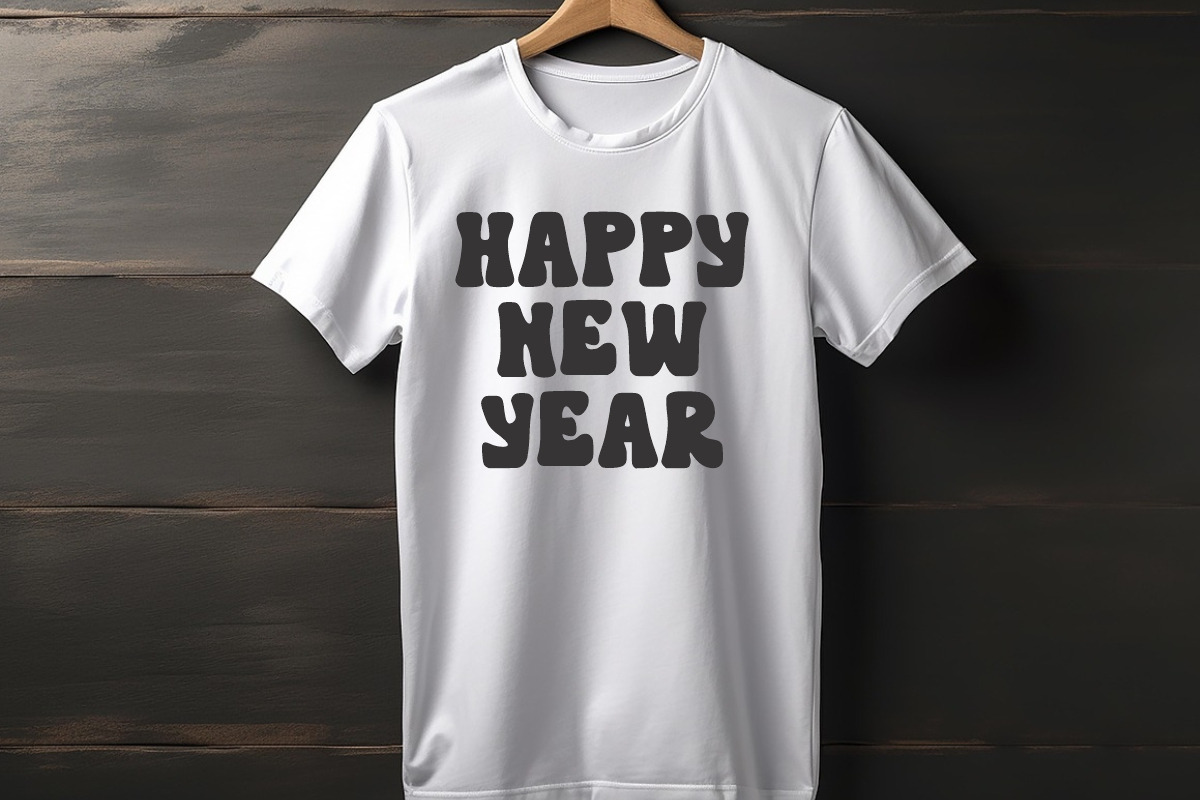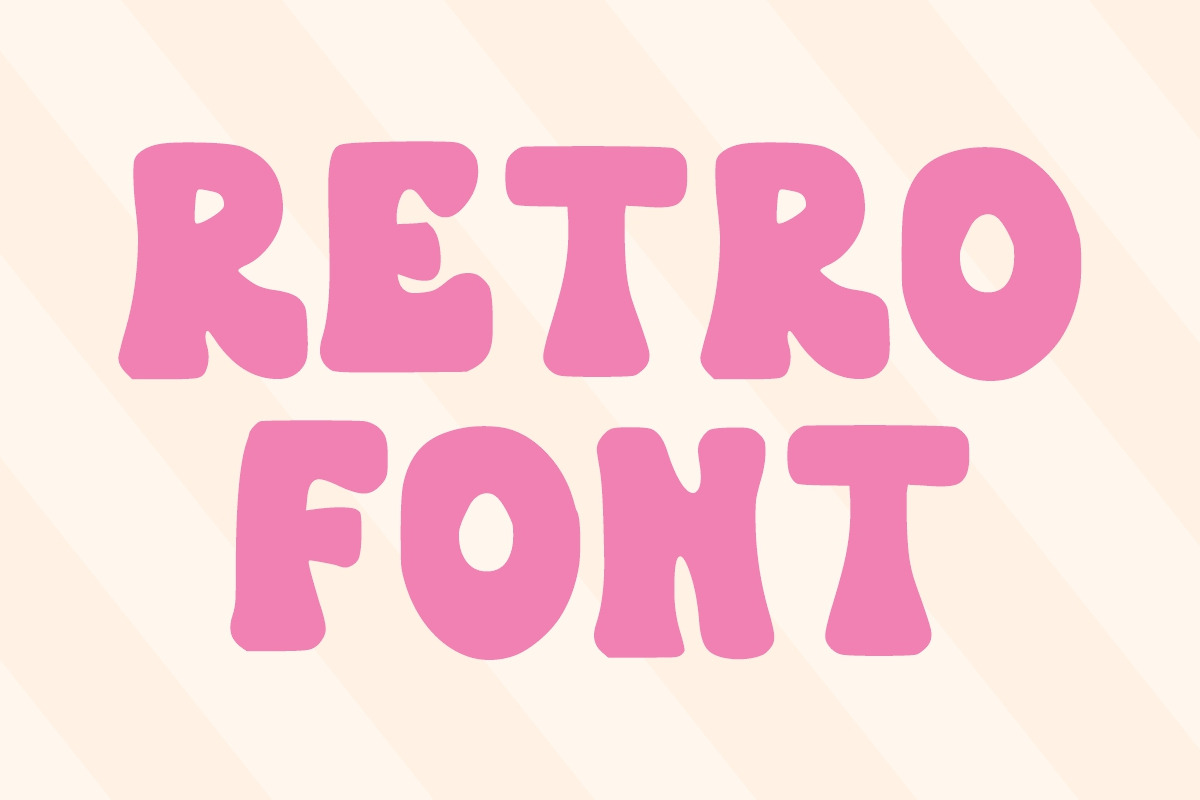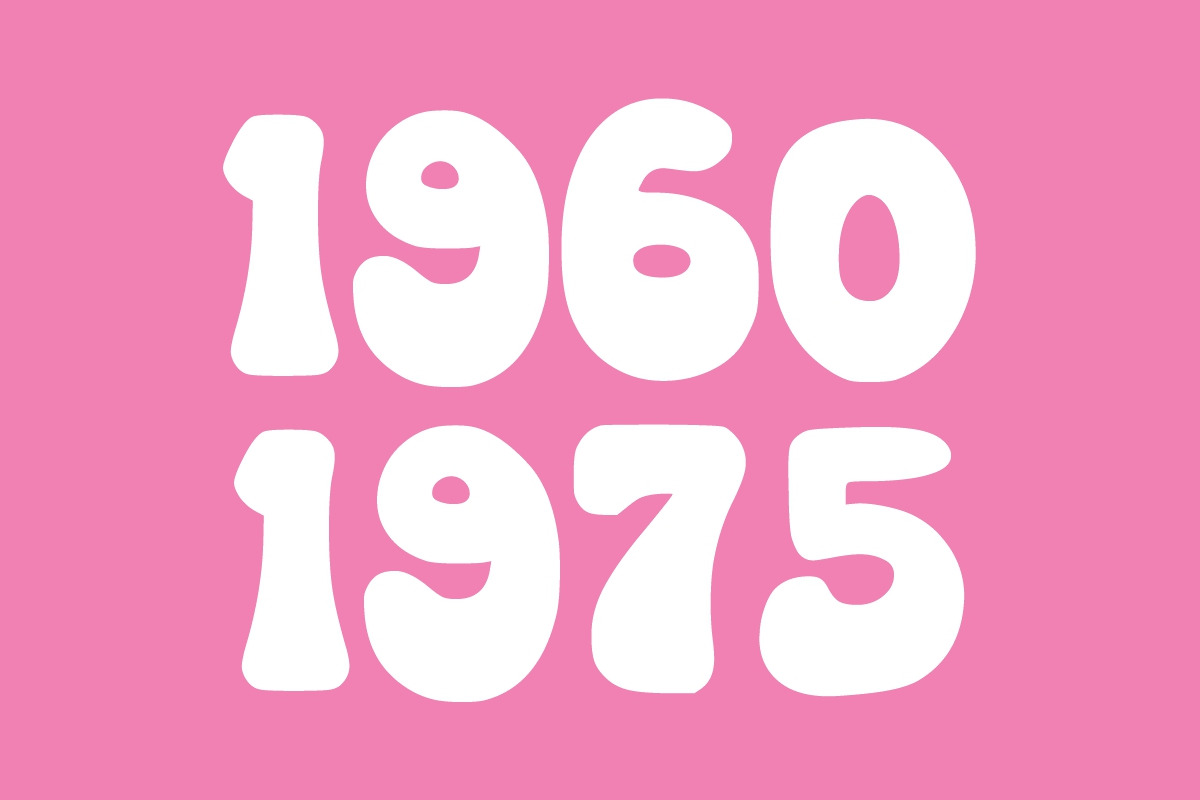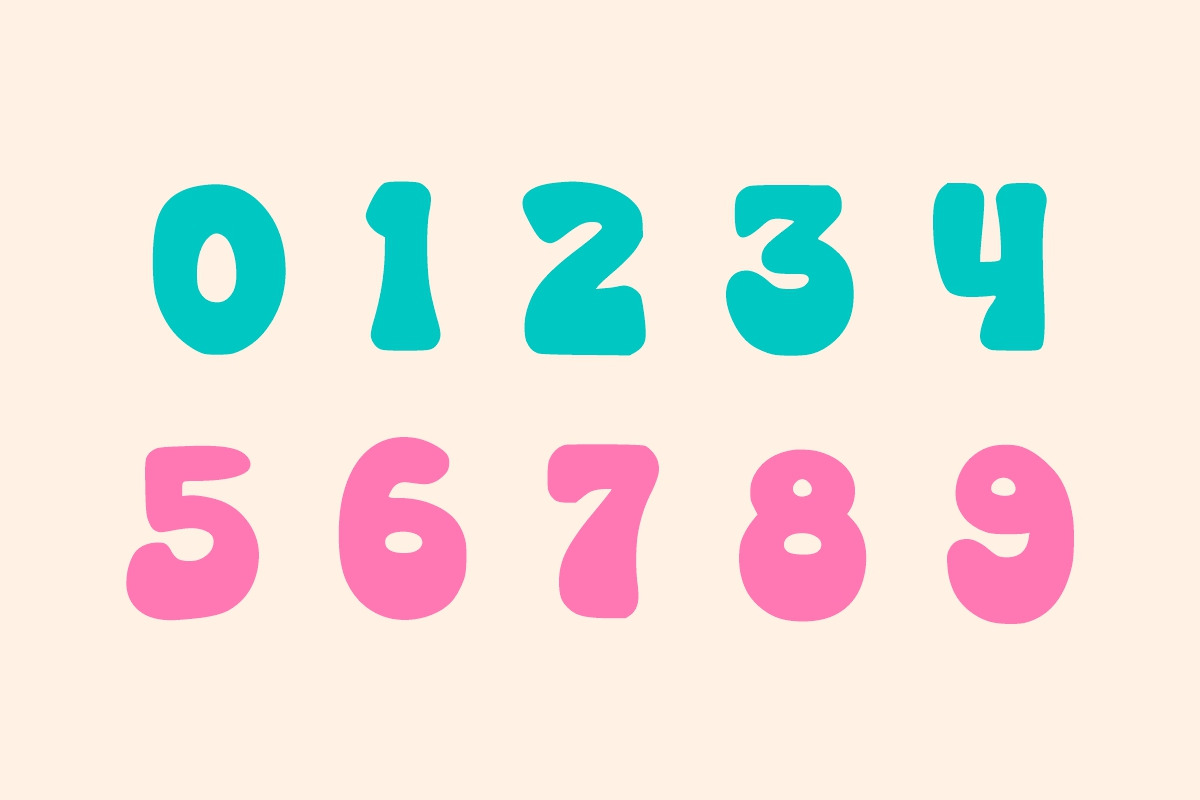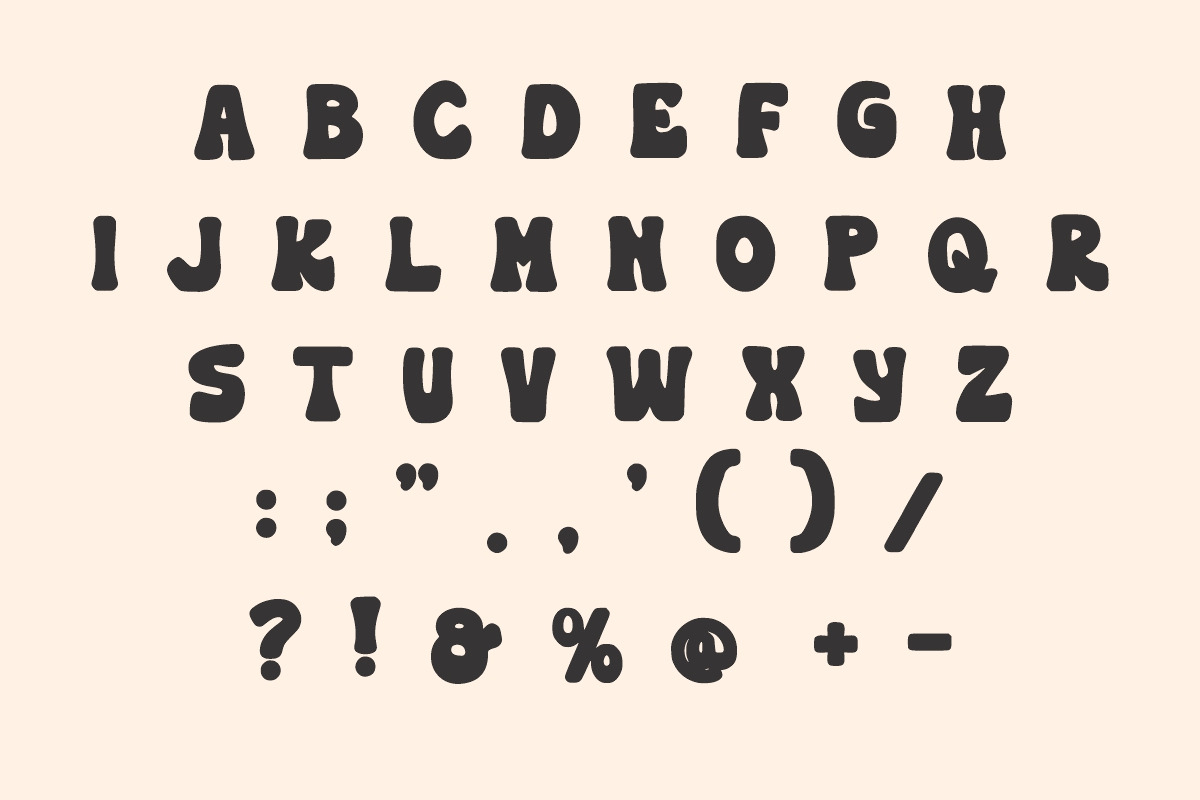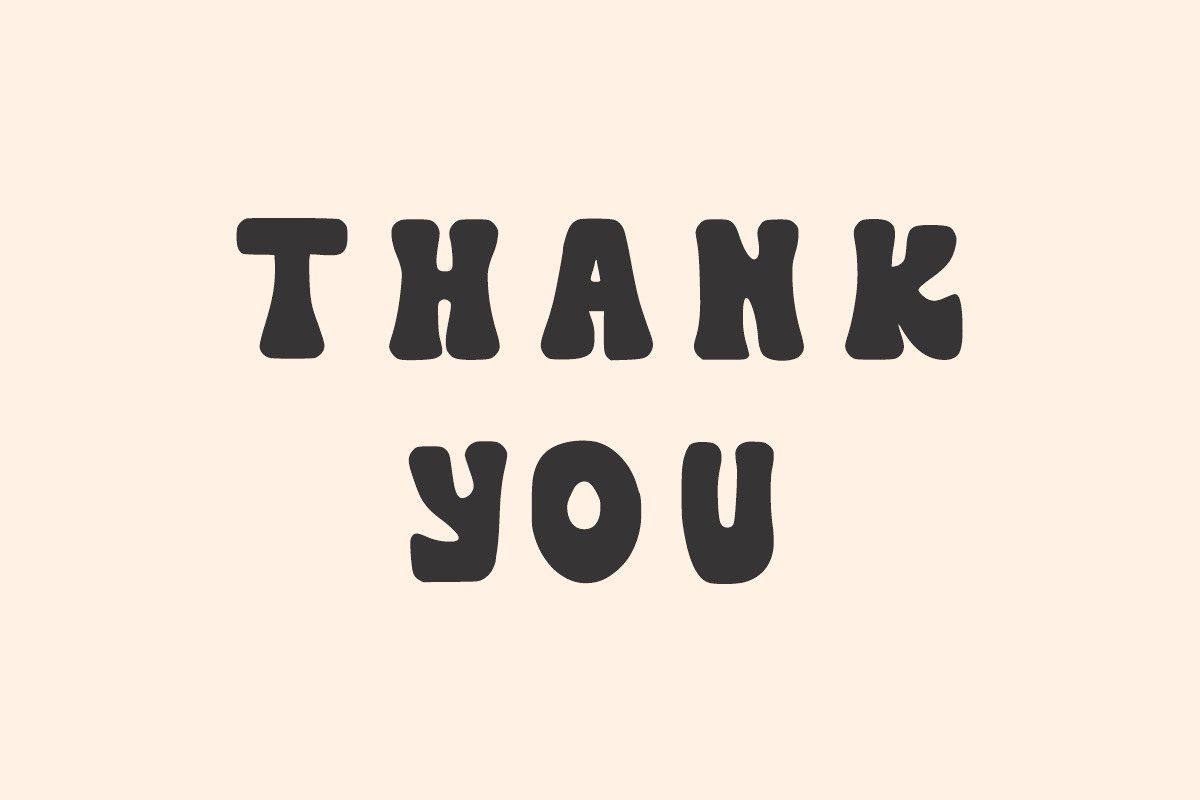
Funky Charm
Funky Charm is a fun retro, groovy, display font. It features a dynamic effect and a unique charm. It is perfect for craft, mug, gift, headlines, banner events, kids posters, school posters, text effects, templates, logos, or name card. thank you